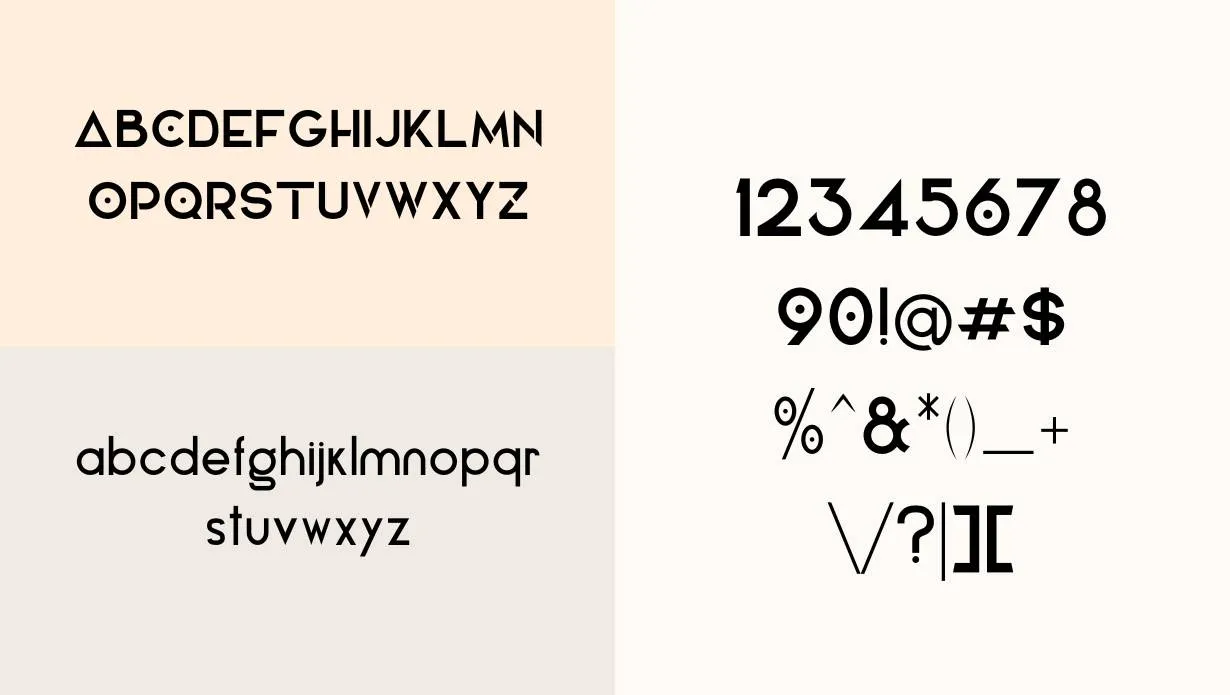
Elianto Font is a playful and decorative typeface that adds a sense of fun and creativity to design projects.
It’s often used in children’s books, party invitations, and imaginative branding, bringing a touch of whimsy and charm to the visuals.
| Name | Elianto Font |
| Designer | Emanuele |
The font’s unique and quirky letterforms create an element of joy and creativity in your design work.